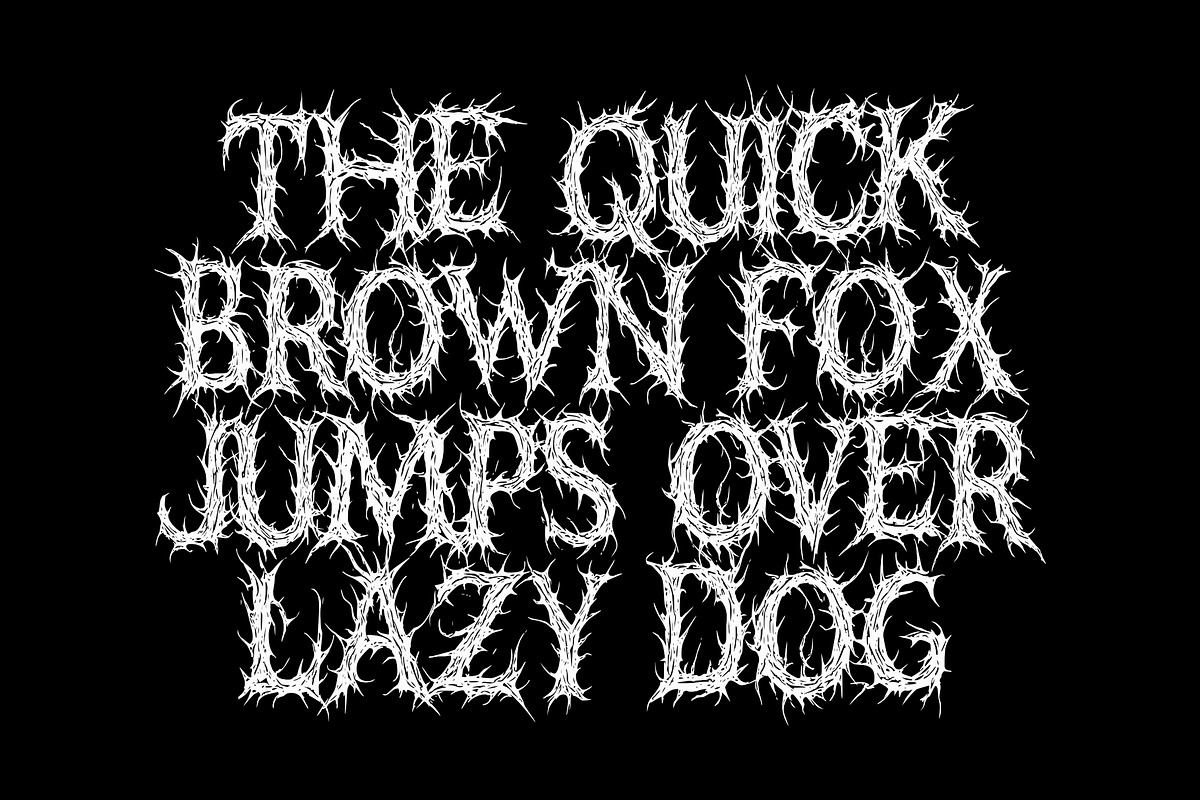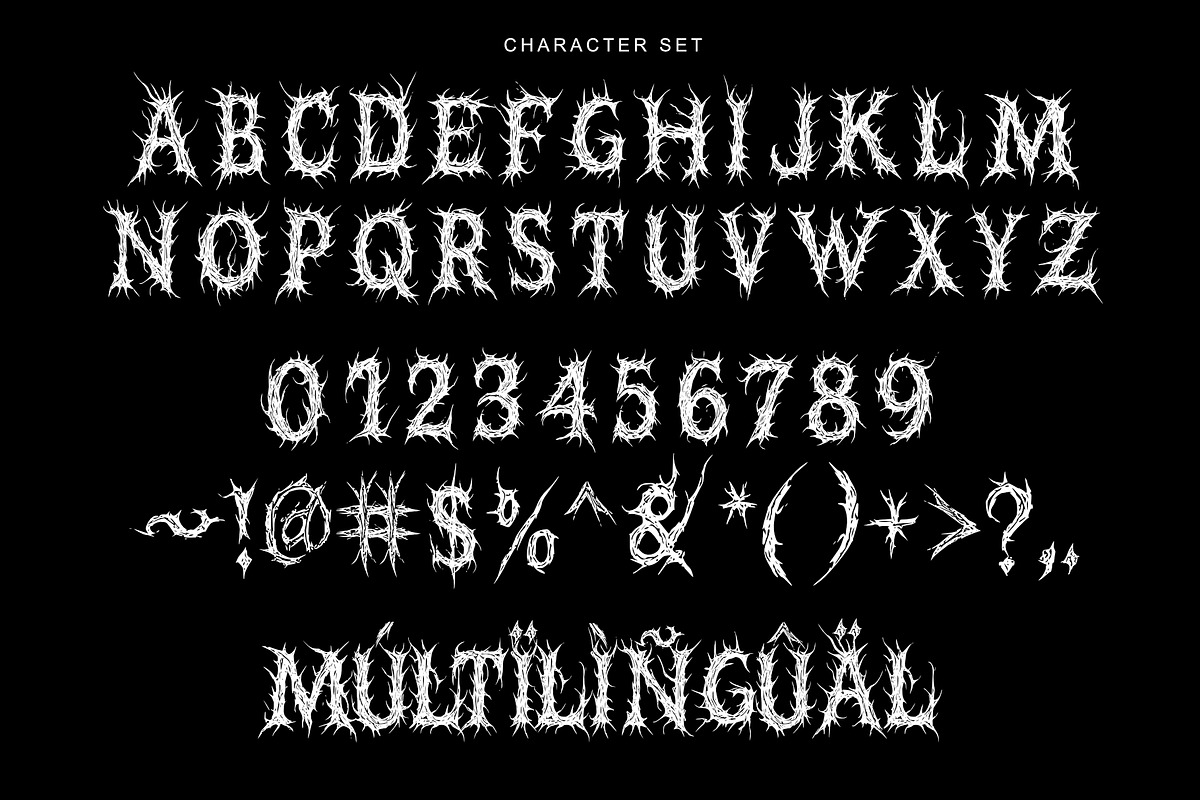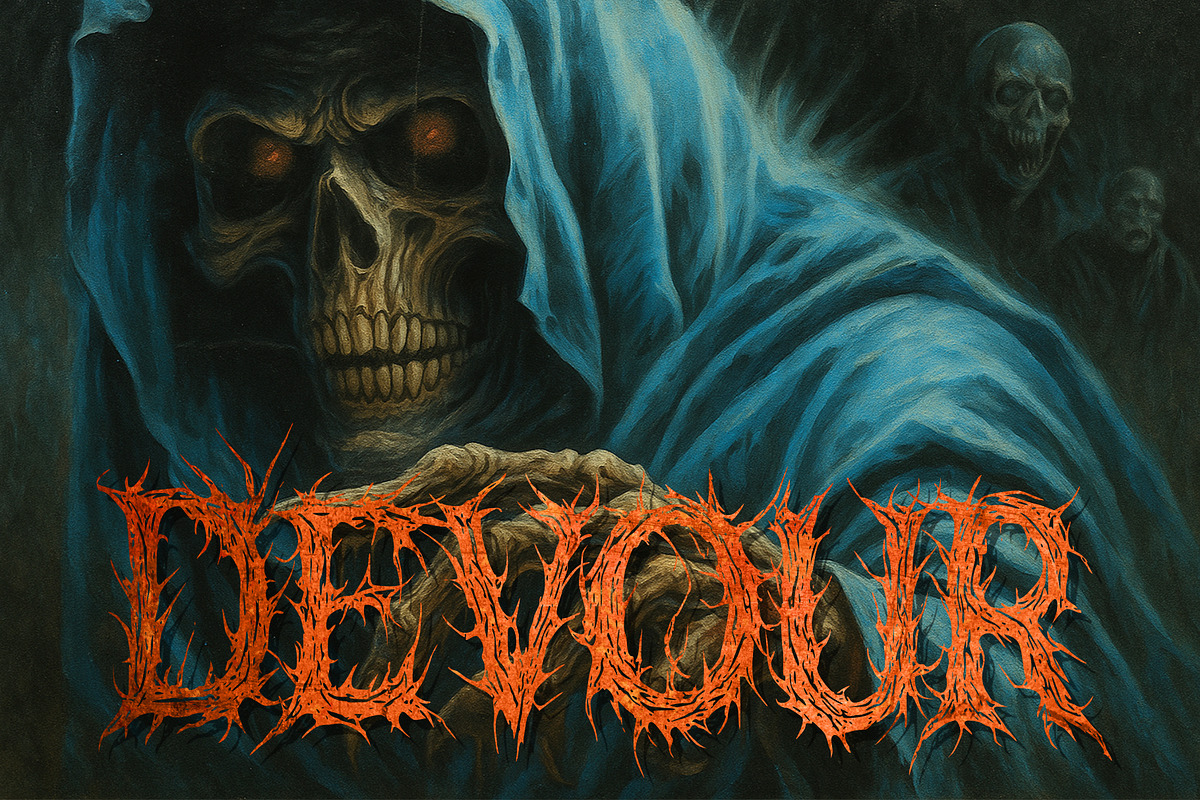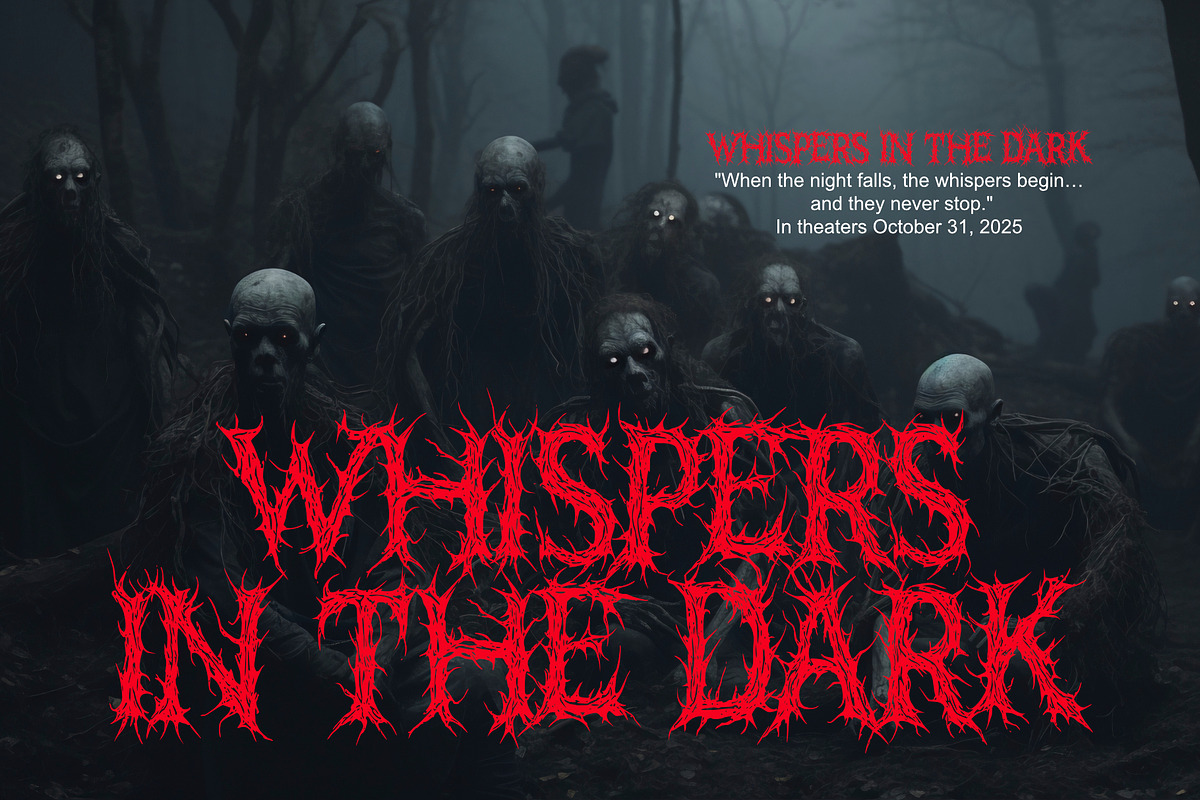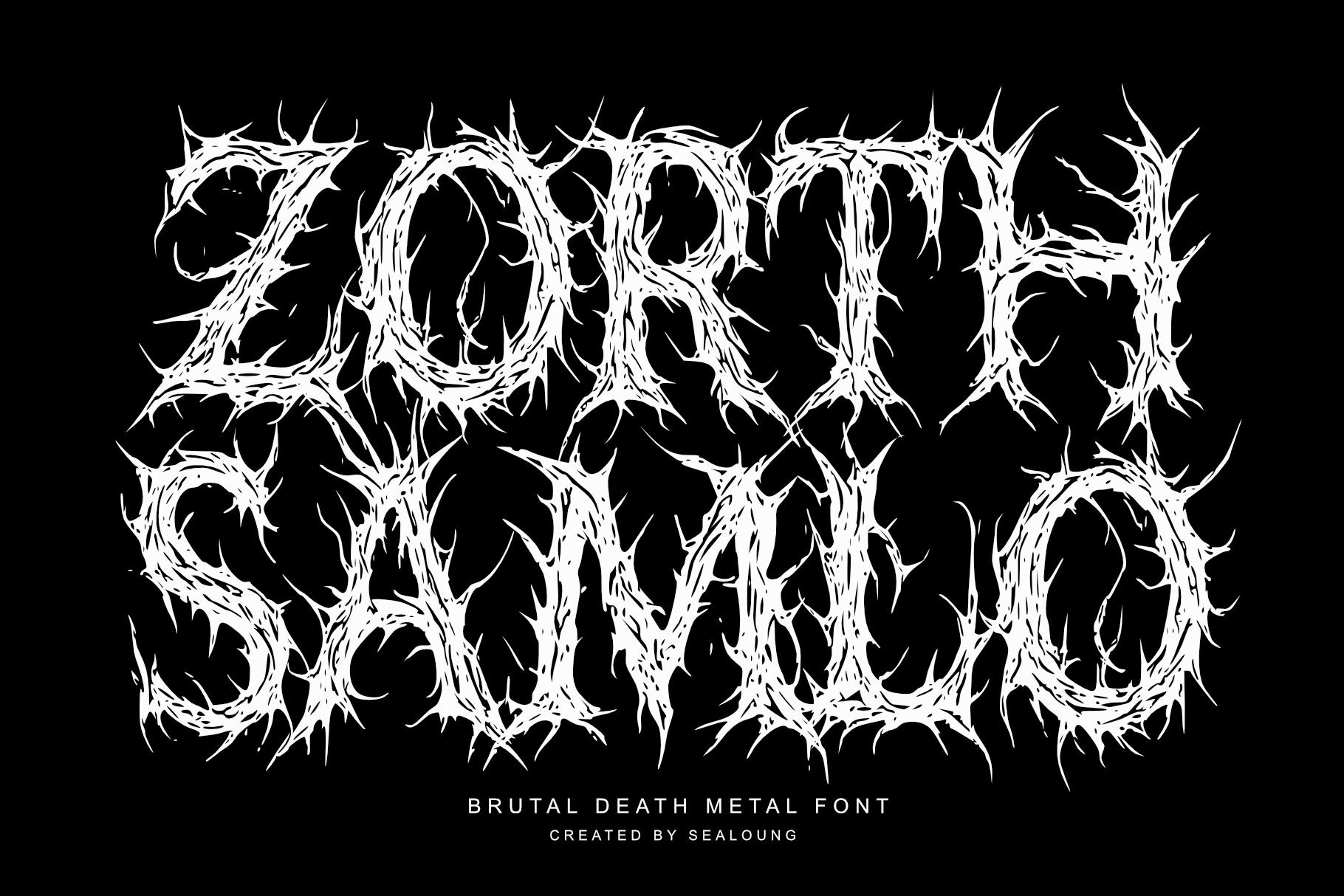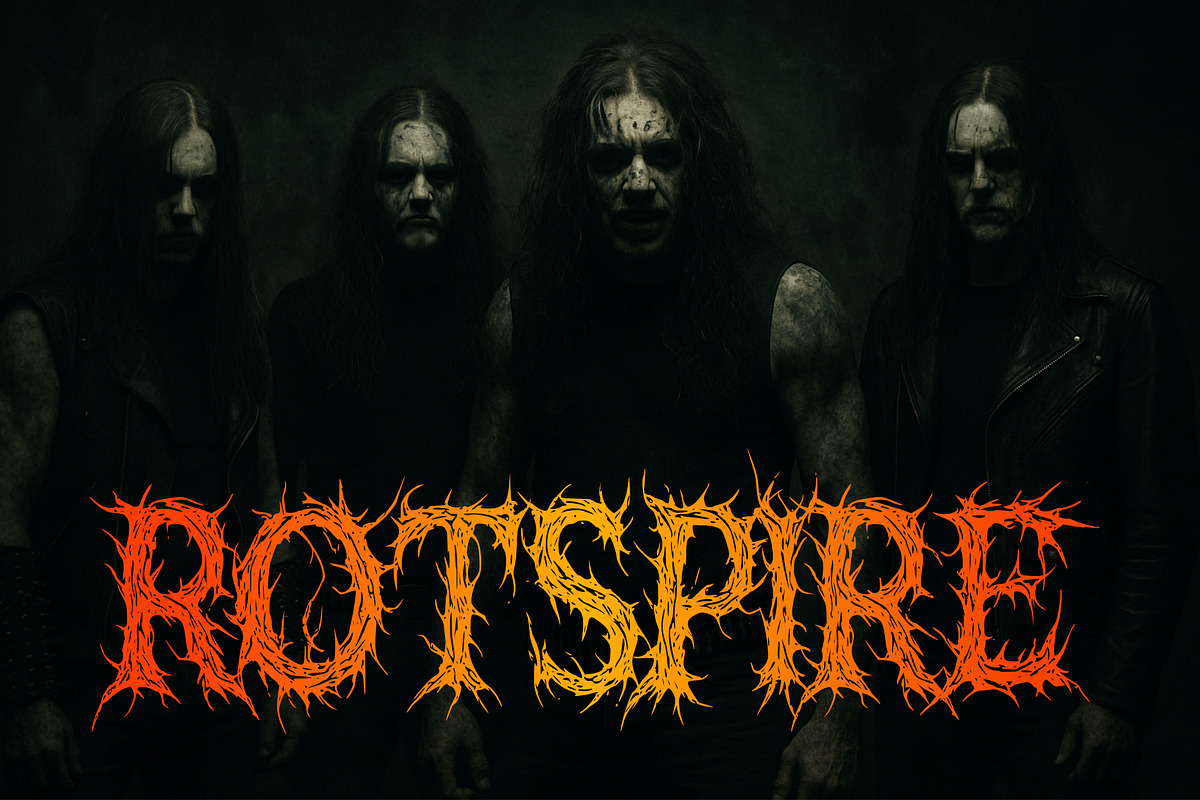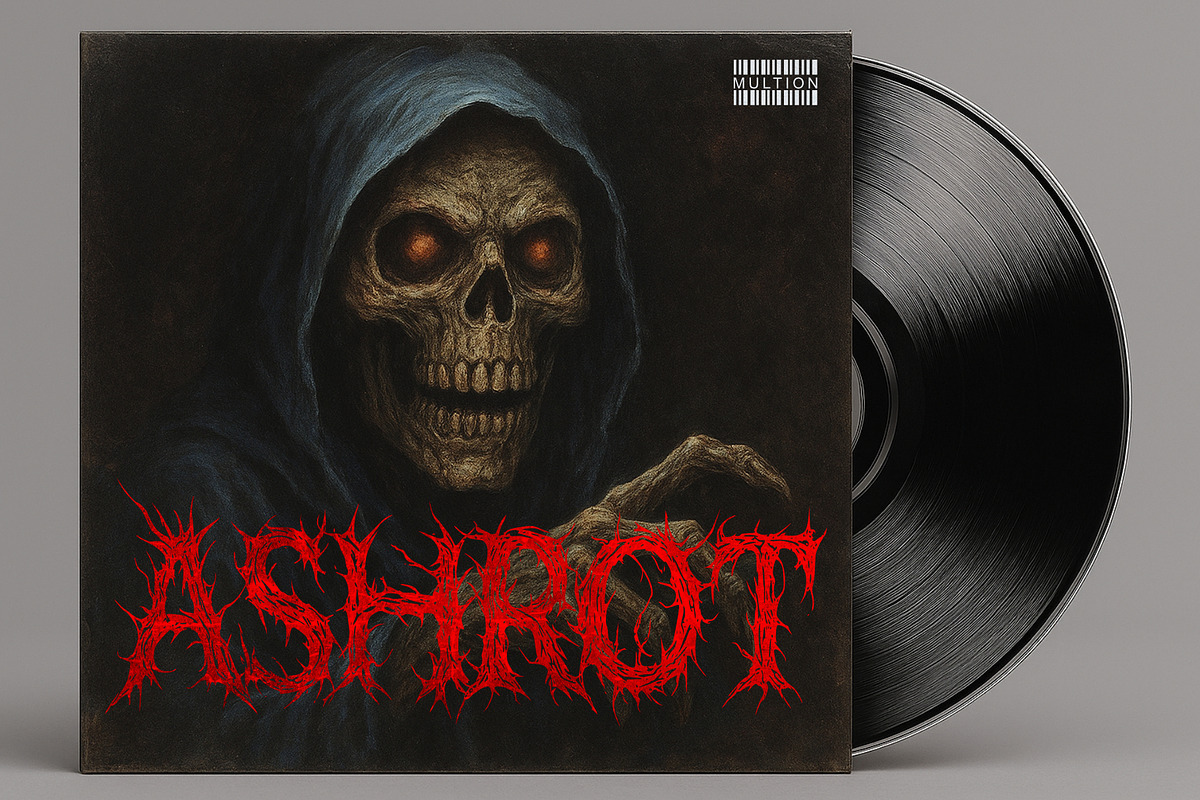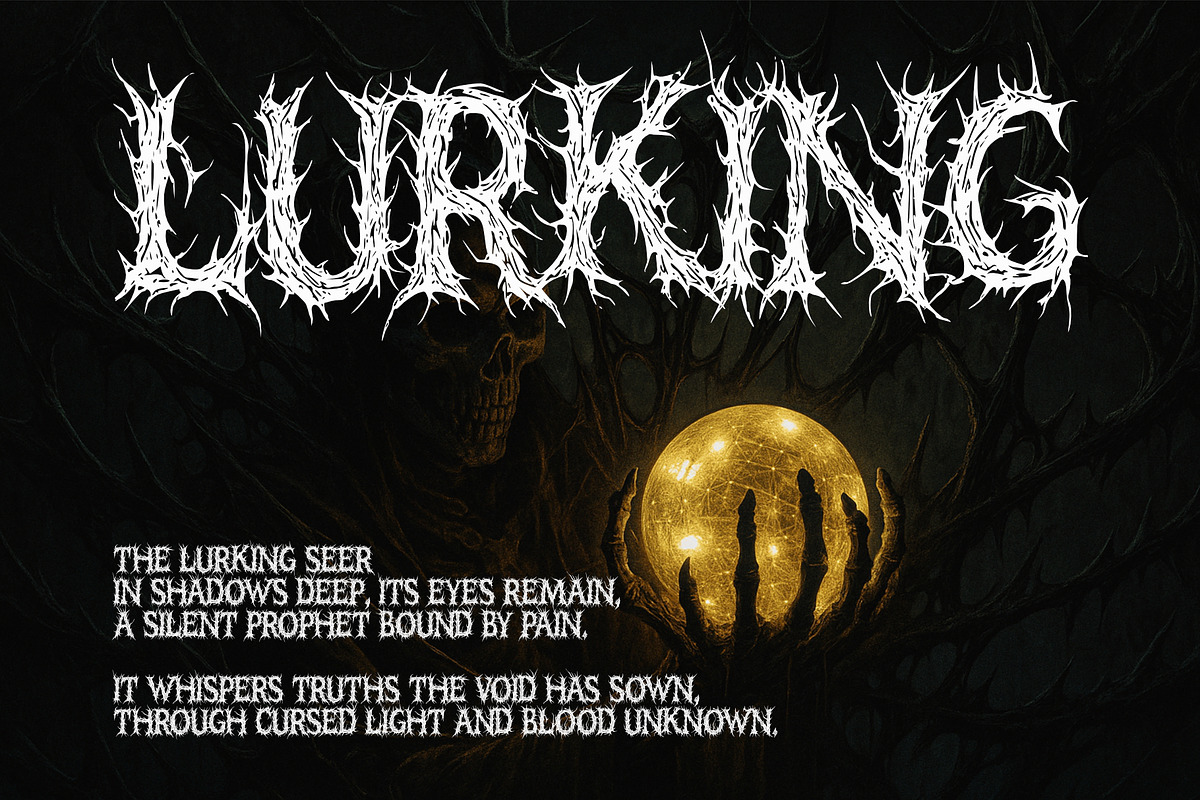
Zorth Samlo - Death Metal Font
Zorth Samlo – Brutal Death Metal Font
Unleash pure chaos with Zorth Samlo, a brutal death metal font forged from twisted thorns and raw aggression. Each letter is crafted with sharp, jagged strokes that embody the essence of extreme music violent, unrelenting, and unforgettable.
Perfect for band logos, album covers, merchandise, posters, flyers, or any dark design that demands intensity, Zorth Samlo brings a spine-chilling atmosphere to your project. Its organic, chaotic flow mirrors the brutality of underground metal, making it an essential choice for designers and musicians alike.
Complete Uppercase A–Z
Numbers 0–9
Essential Punctuation
Unique brutal death metal aesthetic
Whether you’re designing for death metal, black metal, horror movies, or any project that thrives in darkness, Zorth Samlo will dominate the stage with its uncompromising look.